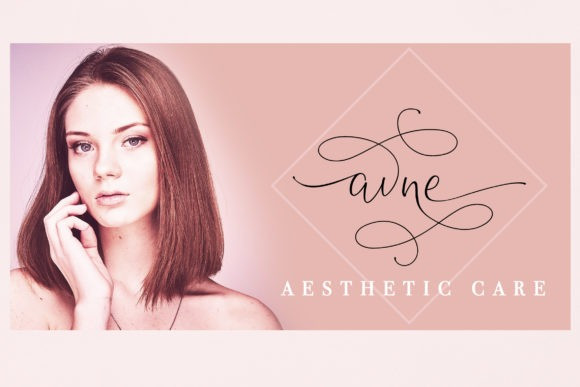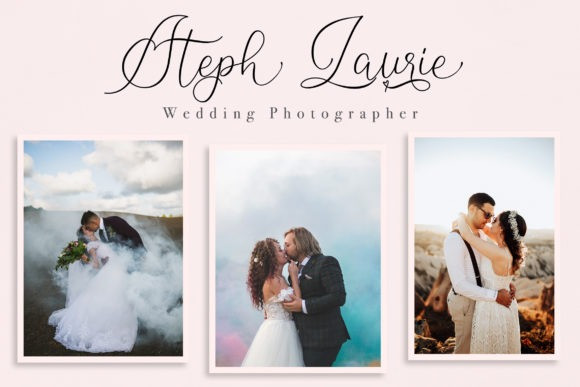
Adicttives Script Font
Give your designs an authentic brush handcrafted feel. Adicttives is perfectly suited to signature, stationery, logo, typography quotes, magazine or book cover, website header, flyer, clothing, branding, packaging design and more.